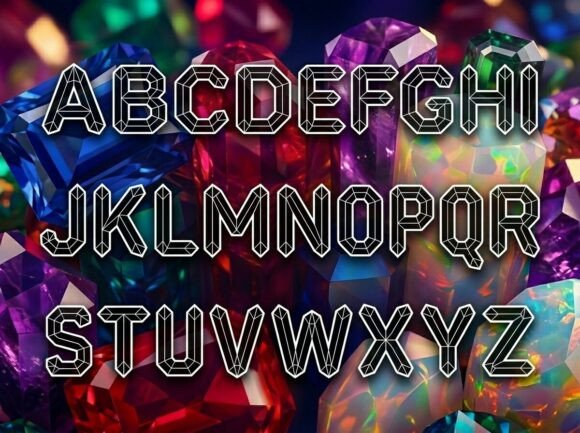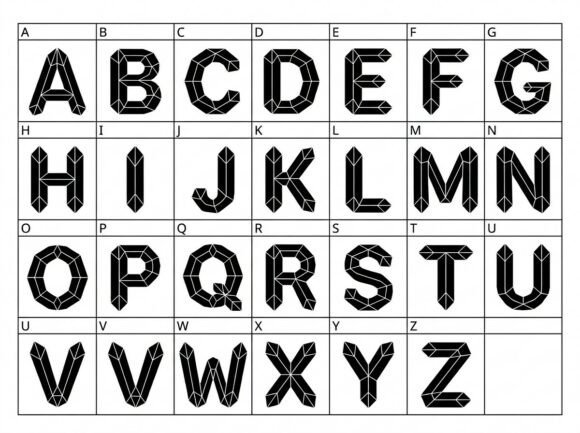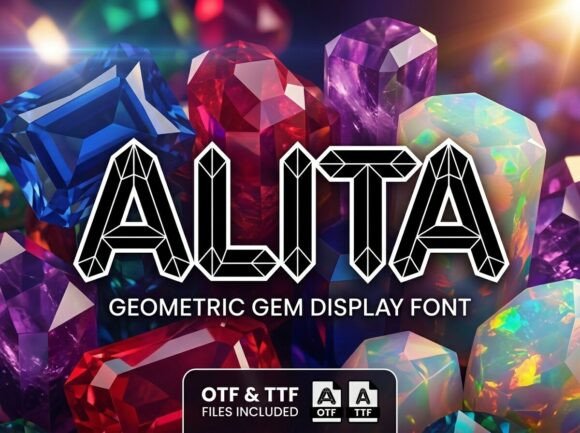
Introducing Alita Font: A Stunning Decorative Display Font
Are you tired of using the same old fonts for your designs? Do you want to make a statement and stand out from the crowd? Look no further than Alita Font, a unique and artistic display font that’s perfect for creators who want to add a touch of elegance and sophistication to their work.
Alita Font is a stunning decorative display font designed to be the center of attention. With its unique artistic elements and strong visual personality, this font is sure to make your designs pop. Whether you’re looking to create bold headlines, artistic logos, or creative packaging, Alita Font is the perfect choice.
Key Features of Alita Font
- Unique Artistic Elements: Alita Font features unique artistic elements that set it apart from other fonts. Each letter is carefully crafted to make a statement and add a touch of elegance to your designs.
- Strong Visual Personality: This font has a strong visual personality that’s perfect for creators who want to break away from the ordinary.
- Versatile: Alita Font is versatile enough for bold headlines, artistic logos, and creative packaging, while maintaining a professional and polished finish.
Why Choose Alita Font?
There are many reasons why Alita Font is the perfect choice for designers and crafters. Here are just a few:
- Stand out from the crowd: With Alita Font, you can create designs that stand out from the crowd and make a statement.
- Elegance and sophistication: This font adds a touch of elegance and sophistication to any design.
- Professional and polished finish: Alita Font maintains a professional and polished finish, making it perfect for commercial designs.
How to Use Alita Font
Alita Font is perfect for a wide range of design projects, including:
- Headlines and titles: Use Alita Font to create bold and eye-catching headlines and titles.
- Logos and branding: This font is perfect for creating artistic logos and branding materials.
- Packaging and labels: Use Alita Font to create creative and eye-catching packaging and labels.
- Signage and displays: This font is perfect for creating eye-catching signage and displays.
In conclusion, Alita Font is a stunning decorative display font that’s perfect for creators who want to add a touch of elegance and sophistication to their designs. With its unique artistic elements, strong visual personality, and versatility, this font is sure to make your designs stand out from the crowd. So why wait? Purchase Alita Font today and take your designs to the next level!